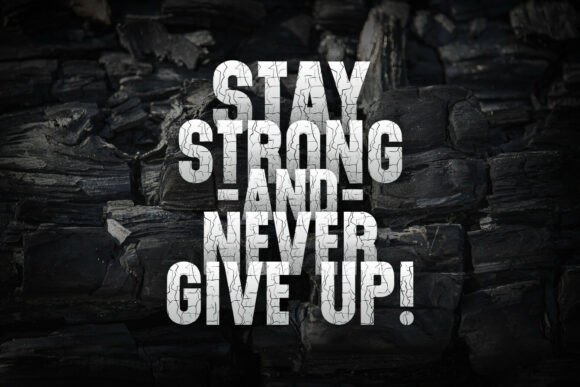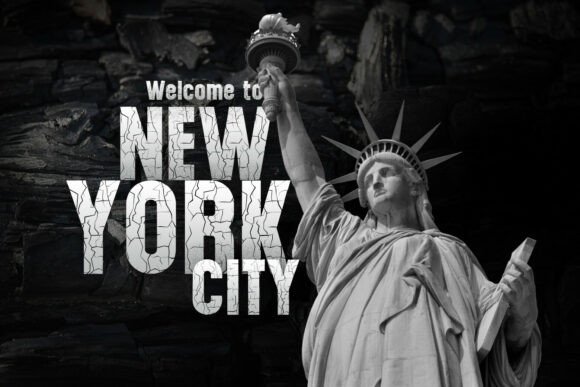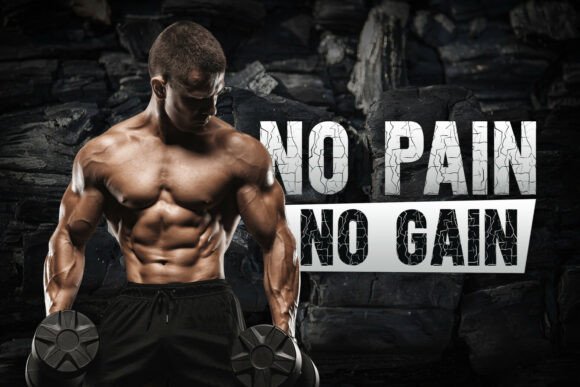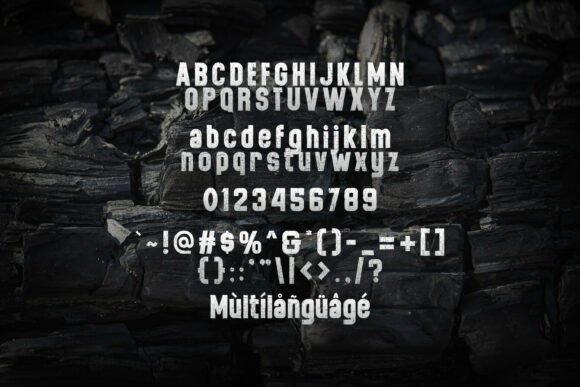
The Designer’s Delight: Unpacking the Unique Briket Font
I’ll never forget the time I was working on a project for a trendy coffee shop, and I just couldn’t find the right font to capture their edgy, modern vibe. The client wanted something that would stand out on their posters and social media, but everything I tried seemed too bland or overused. That’s when I stumbled upon the Briket font, and it was love at first sight! ✨
With its cracked, sans-display style, Briket added a unique touch to the coffee shop’s branding that perfectly matched their personality. Since then, I’ve been hooked on this font, and I’m excited to share my enthusiasm with you. In this article, we’ll dive into the world of Briket, exploring its features, how to use it, and what makes it so special.
So, what makes Briket so amazing? Here are a few things that I just love:
- ✅ Unique Style: Briket’s cracked font style is unlike anything you’ve seen before. It’s perfect for adding an edgy touch to your designs.
- ✅ Versatility: This font is incredibly versatile and can be used for a wide range of projects, from posters and logos to magazines and book covers.
- ✅ Ease of Use: Despite its unique style, Briket is surprisingly easy to use and pairs well with many other fonts.
- ✨ Aesthetic Appeal: The font’s modern and sleek design makes it a feast for the eyes.
Of course, no font is perfect, and Briket has a few quirks to keep in mind:
- ⚠️ Legibility at Small Sizes: Like many display fonts, Briket can be a bit tricky to read at smaller sizes. It’s best used for headlines or titles rather than body text.
- 🤔 Limited Formality: Due to its unique style, Briket may not be the best choice for more formal projects or designs that require a traditional look.
Exploring Alternatives: Similar Fonts to Briket
While Briket is unique, there are other fonts that share similar qualities. Here are a few alternatives you might like:
- Graffiti Font: This font has a similar urban, edgy feel to Briket, with a more graffiti-inspired style. Use it for bold, eye-catching designs.
- Broken Font: As the name suggests, this font has a broken, distressed look that’s similar to Briket’s cracked style. It’s great for adding a gritty touch to your designs.
- Crackle Font: This font features a fun, crackle effect that’s perfect for designs that need a playful touch. It’s similar to Briket but with a more whimsical feel.
- Fracture Font: With its fractured, broken letters, this font has a similar edgy vibe to Briket. Use it for designs that need a bold, modern look.
The Story Behind Briket: Designer Inspiration
Ever wonder how fonts are created? While the actual story behind Briket might be a mystery, it’s easy to imagine that it was designed by someone who loves pushing the boundaries of traditional typography. Perhaps the designer was inspired by urban graffiti or the cracks in a worn-out sidewalk. Whatever the inspiration, Briket is a testament to the power of creative experimentation in font design.
| Font Name | Briket Font |
| Author | Khurasan |
| What type of projects is Briket best suited for? | Briket is perfect for posters, logos, magazines, book covers, banners, and any project that needs a modern, edgy touch. |
| Is Briket difficult to read? | Like many display fonts, Briket can be challenging to read at small sizes. It’s best used for headlines or titles rather than body text. |
| Does Briket support OpenType features? | Yes, Briket supports OpenType features, including glyphs and stylistic alternates, which can add more variety to your text. |
In conclusion, Briket is a unique and versatile font that’s perfect for designers, crafters, and creative hobbyists looking to add an edgy touch to their projects. With its modern and sleek design, it’s sure to make your designs stand out. So go ahead, give Briket a try, and see how it can elevate your creative projects! 🚀